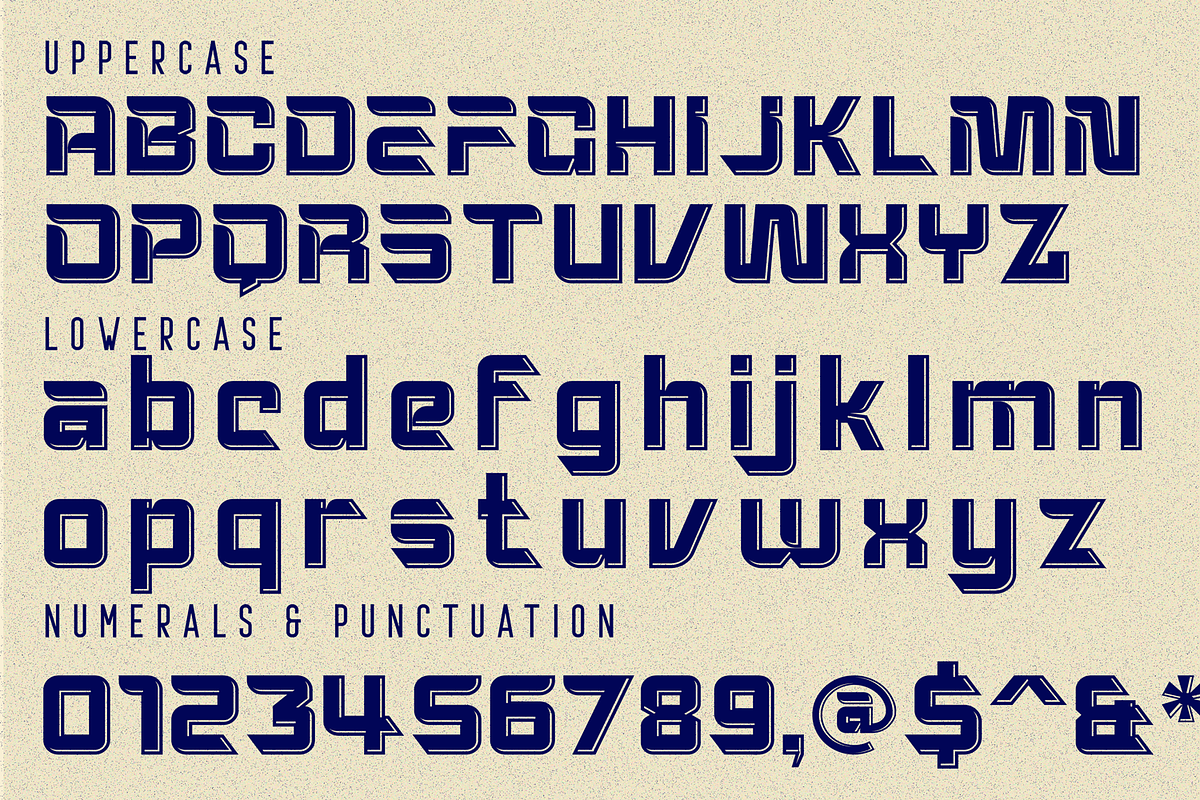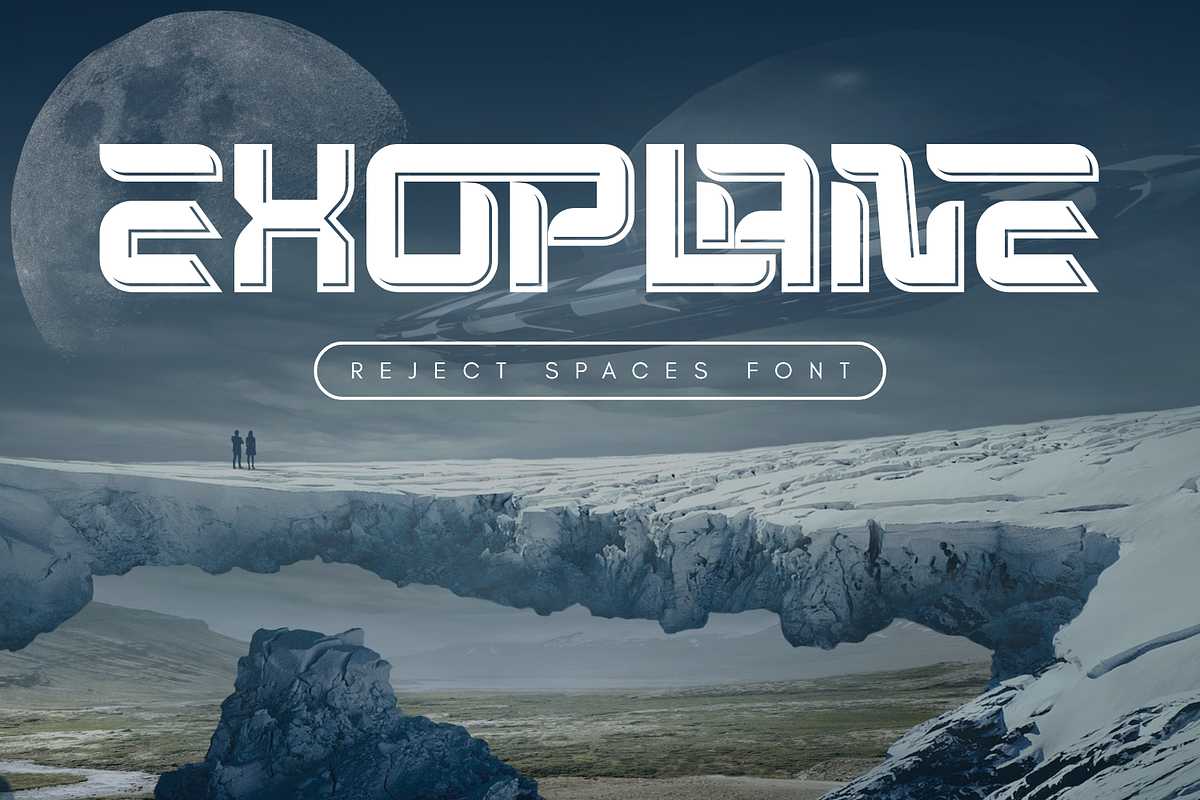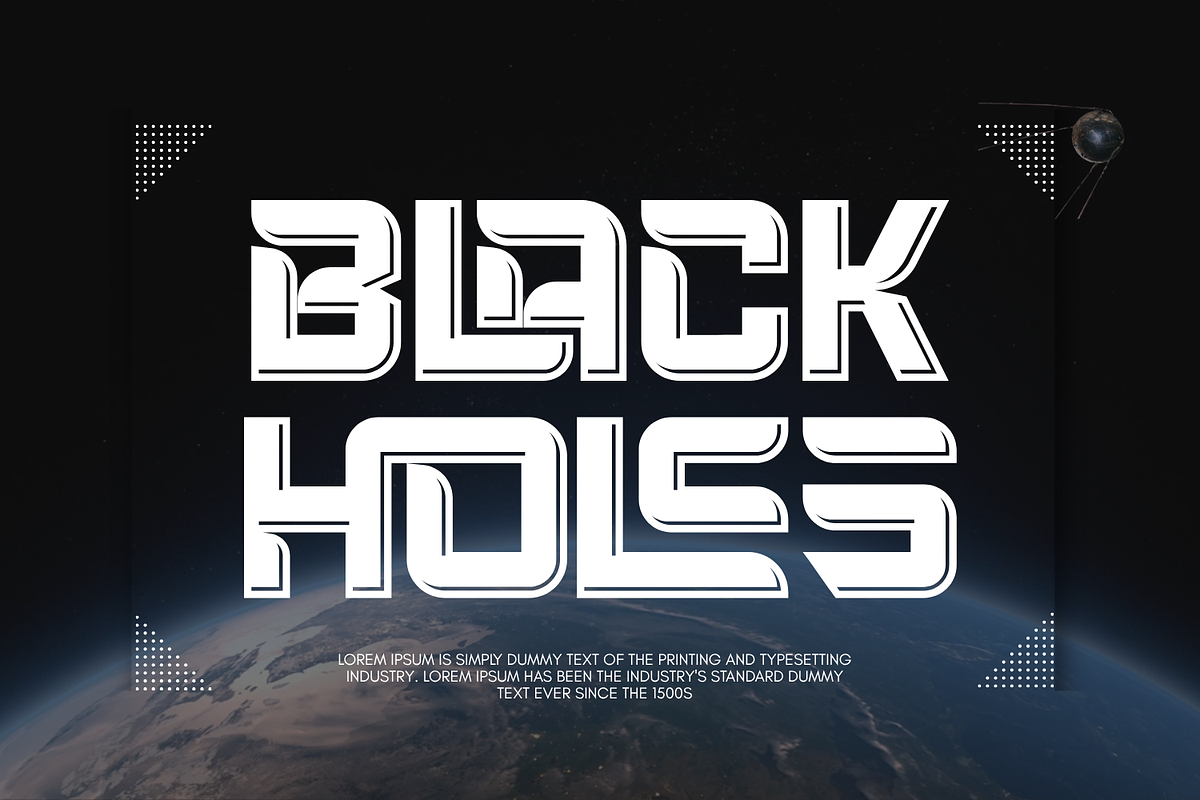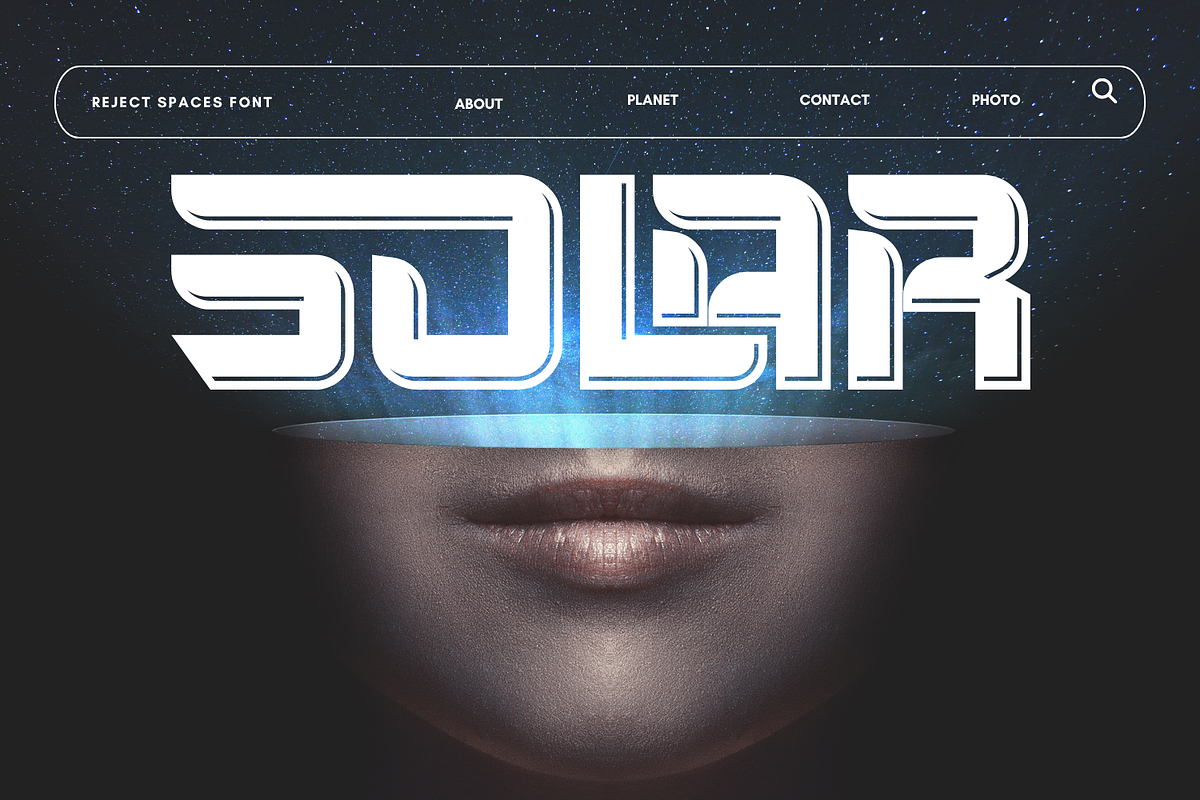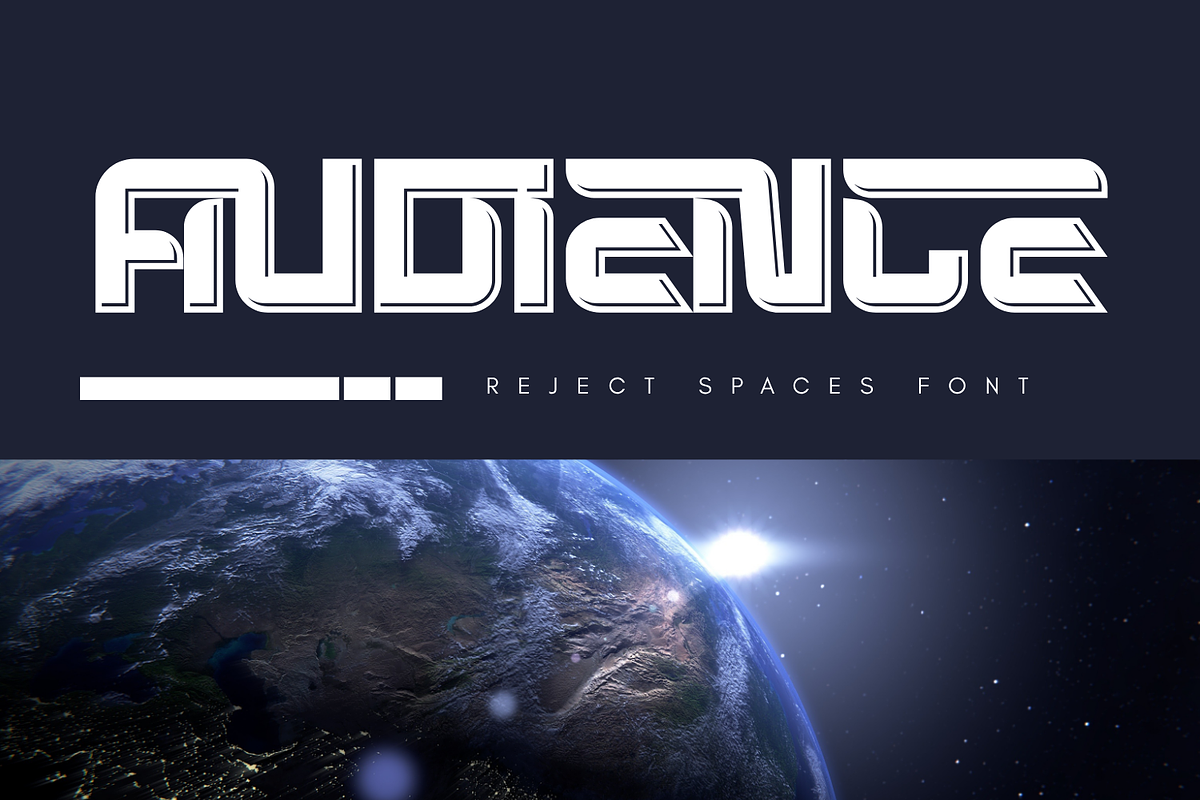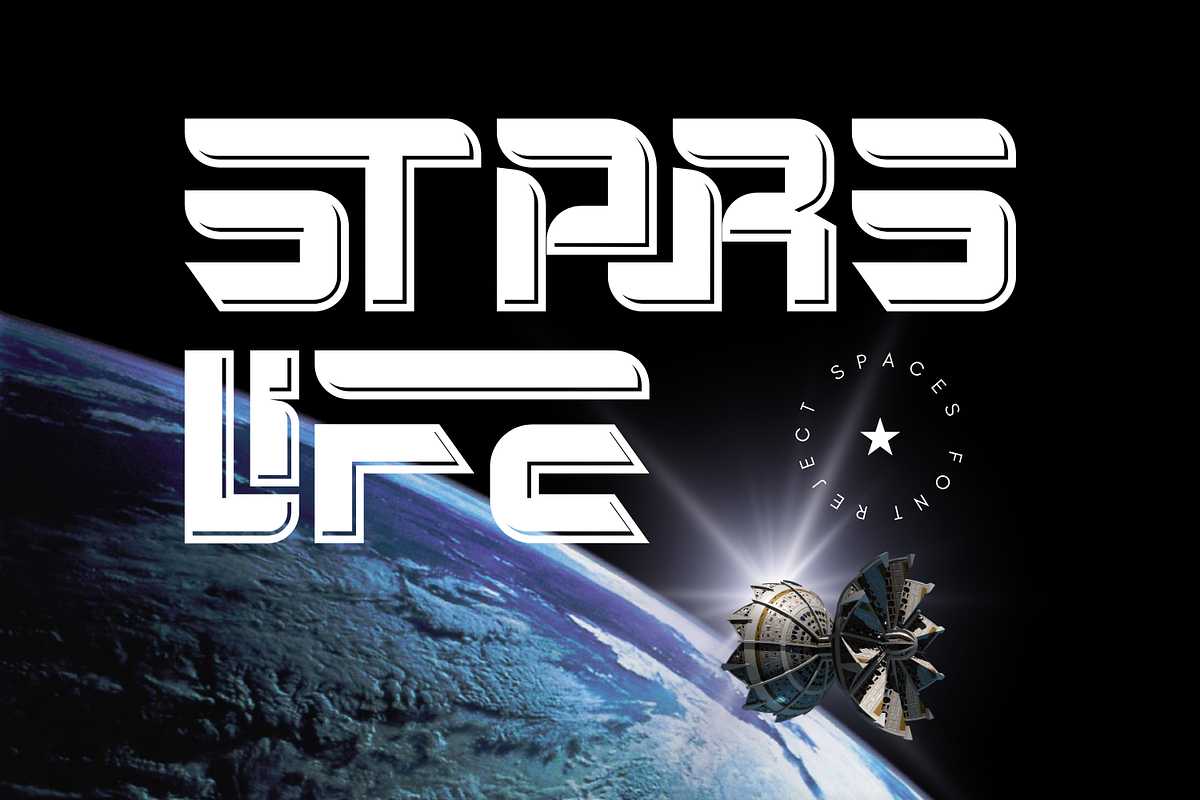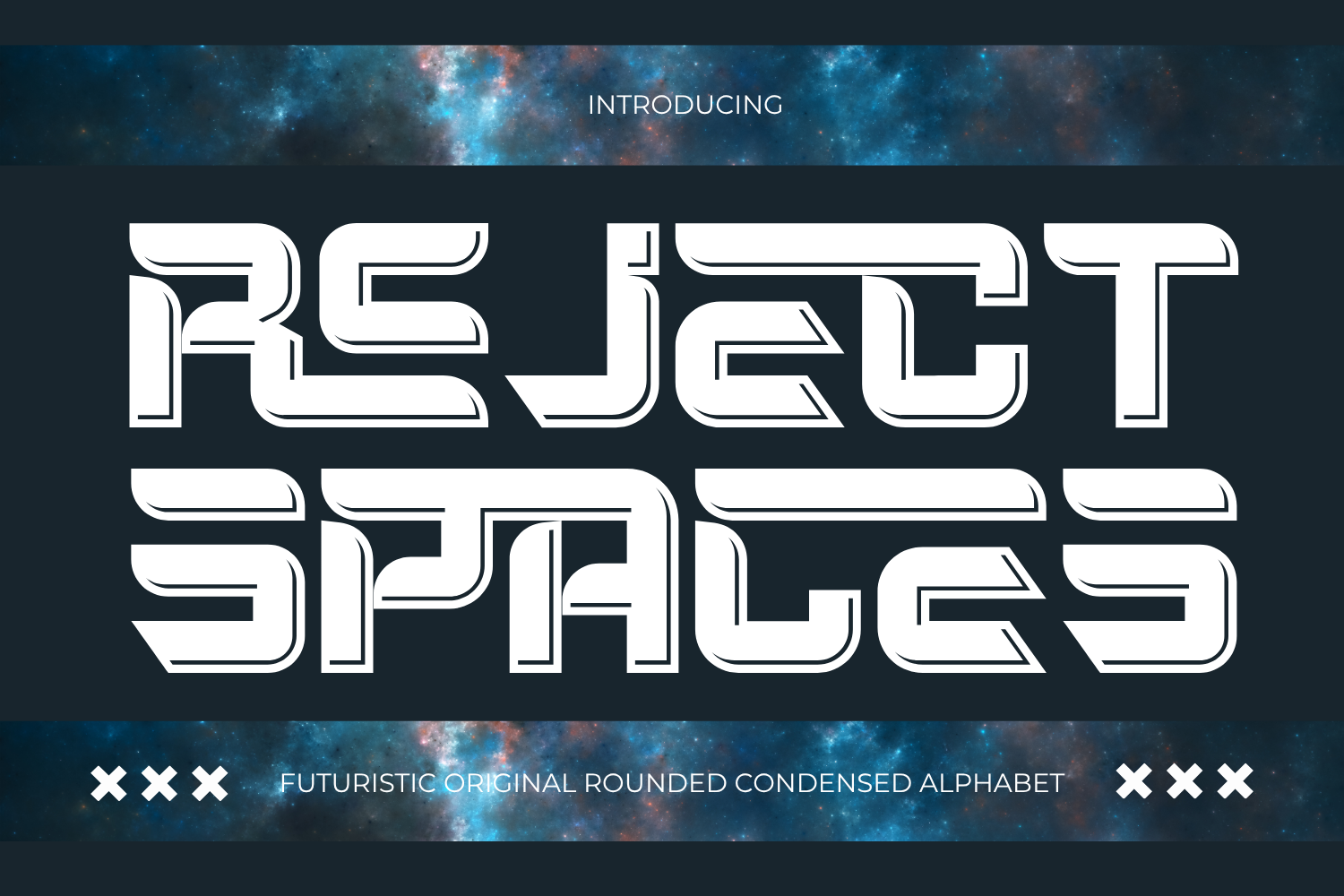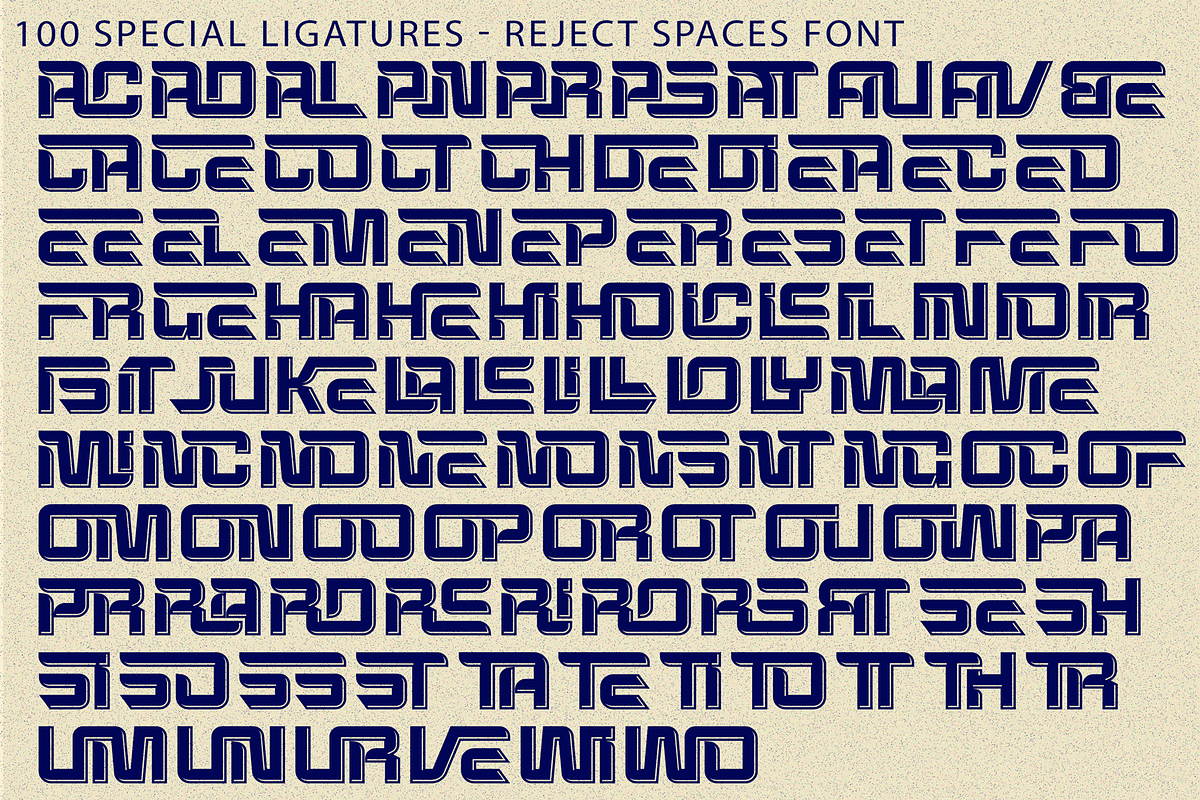
REJECT SPACES - SCI-FI FONT
REJECT SPACES - SCI-FI FONT is a bold futuristic modular techno display typeface designed with a strong sci-fi and digital aesthetic. Built from structured geometric forms and segmented strokes, this typeface delivers a powerful and modern visual impact inspired by advanced technology and space-age design. Featuring rounded corners combined with precise modular construction, each letter feels engineered and dynamic. REJECT SPACES is perfect for gaming titles, tech branding, UI interfaces, esports graphics, and futuristic posters.
🔤Features:
- Uppercase & Lowercase Letters
- Around 100 Special Ligatures & Alternates
- Accented Characters for multilingual support
🔤About 100 ligatures combined with Stylistic Alternates Font:
AC AD AL AN AR AS AT AU AV BE CA CE CH CO CT DE DI EA EC ED EE EL EM EN EP ER ES ET FE FO FR GE HA HE HI HO IE IC IL IN IO IR IS IT JU KE LA LE LI LL LO LY MA ME MI NC ND NE NG NO NT NS OC OF OM ON OO OP OR OT OU OW PA PR RA RD RE RI RO RS RT SE SH SI SO SS ST TA TE TH TI TO TR TT UM UN UR VE WI WO